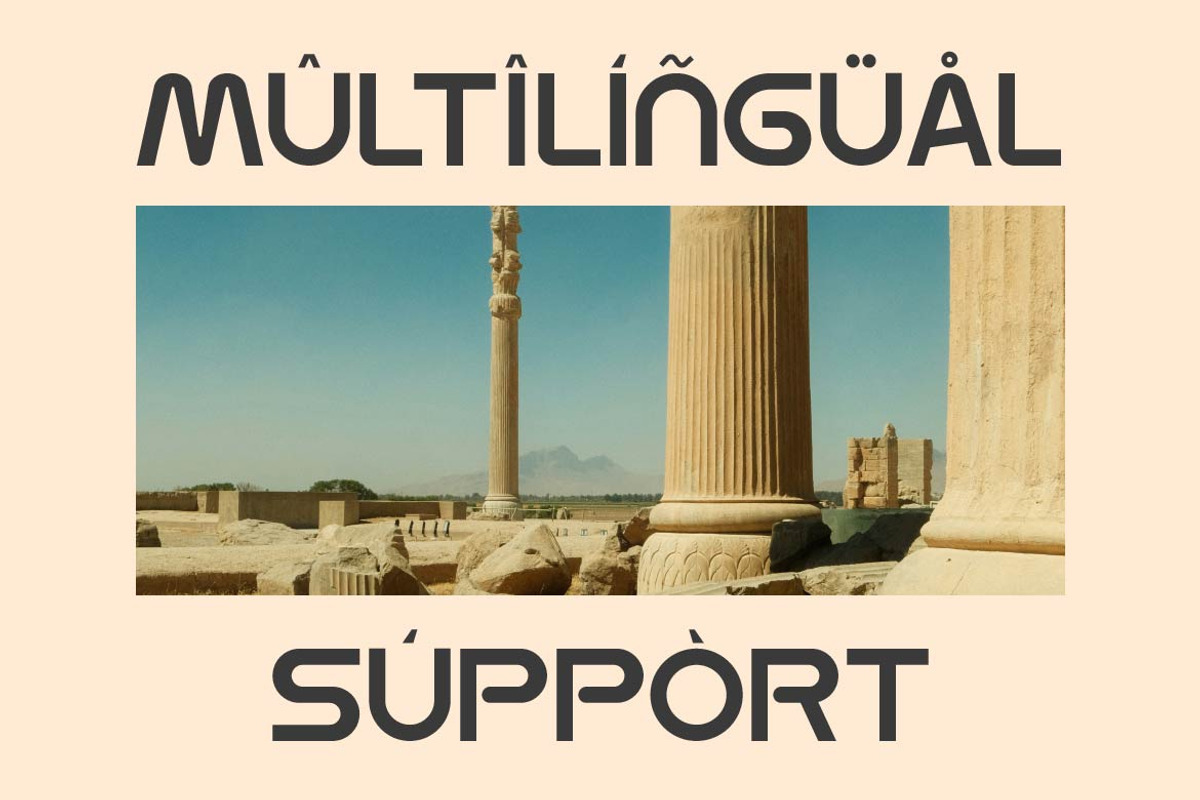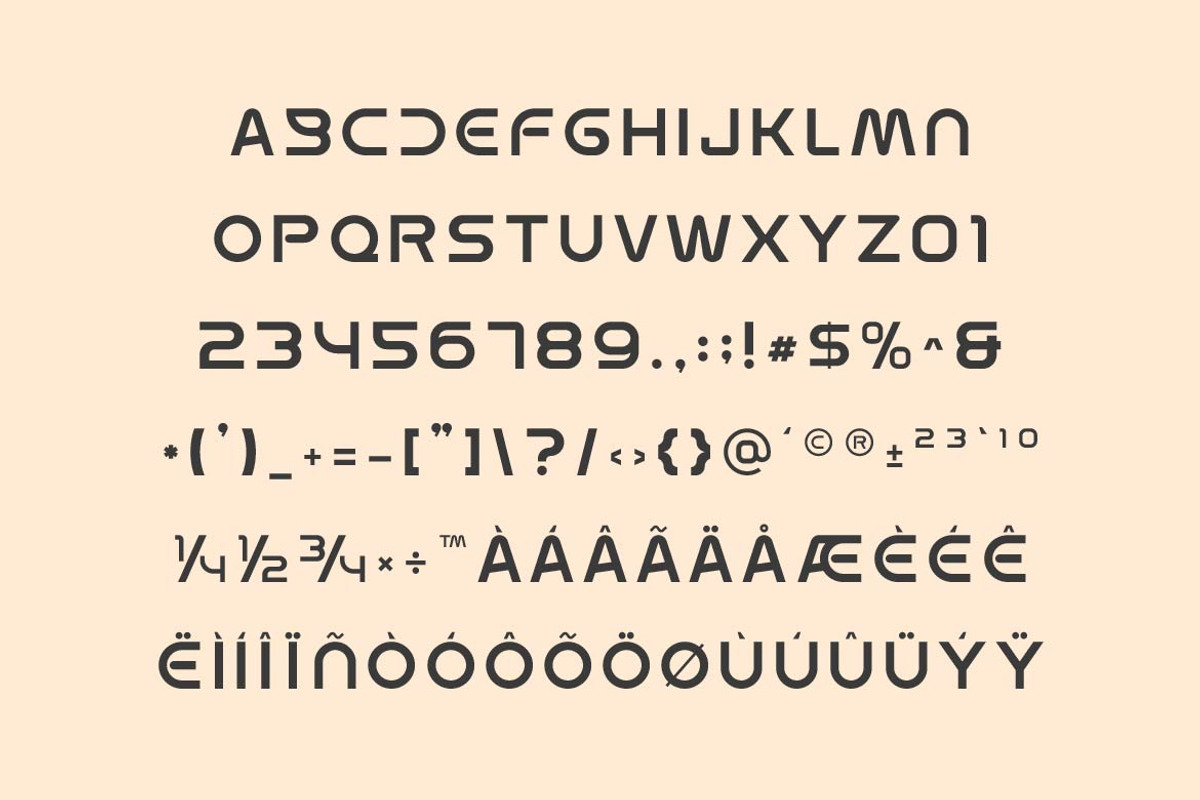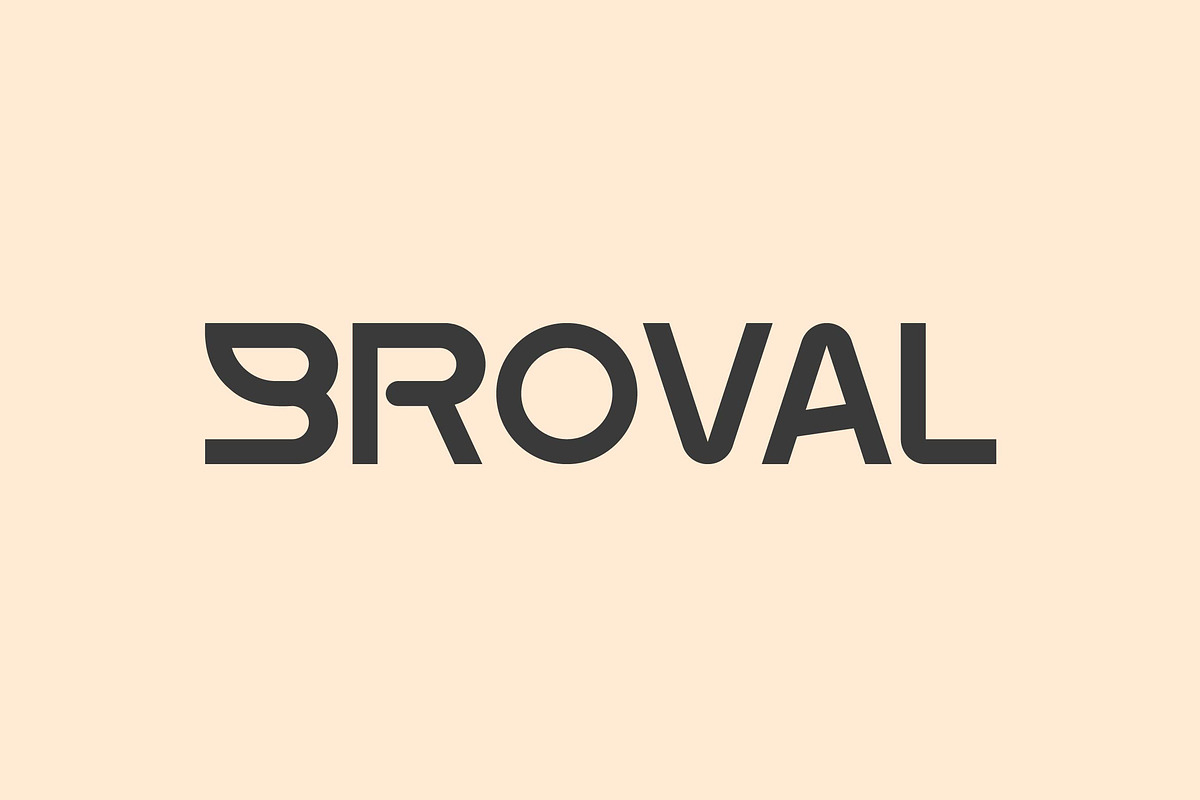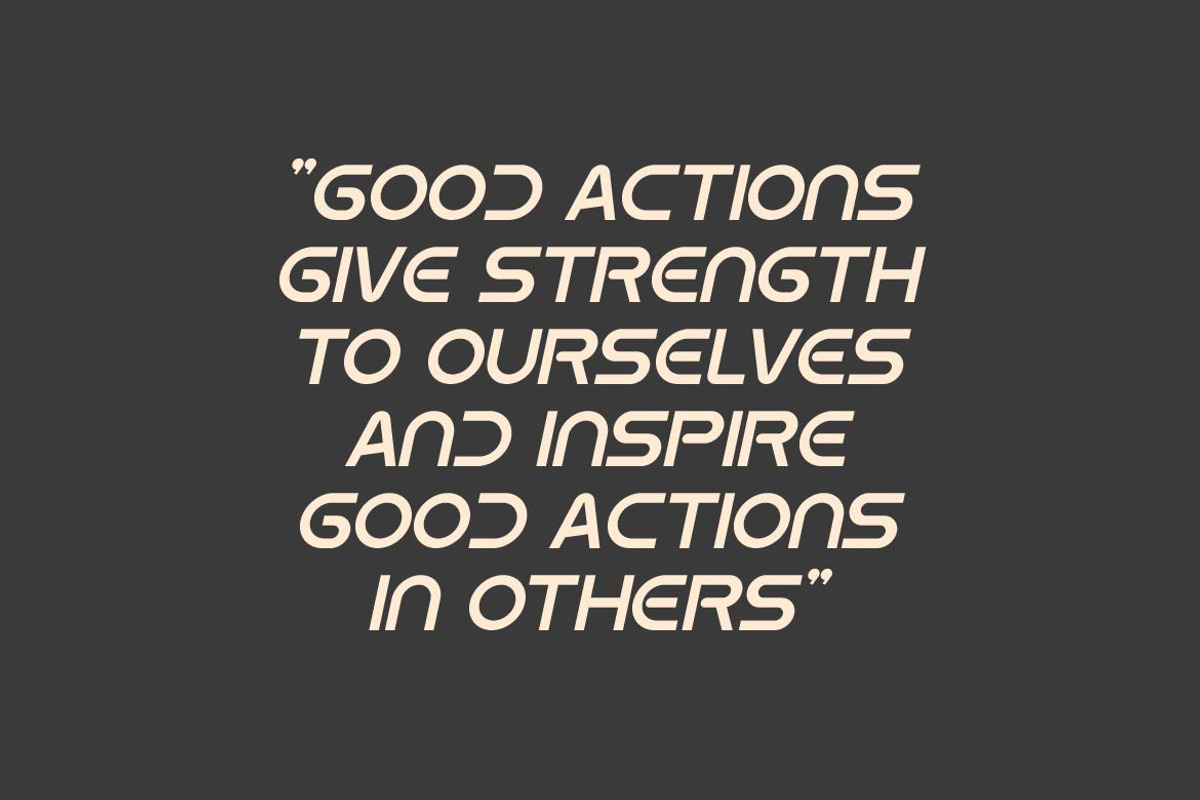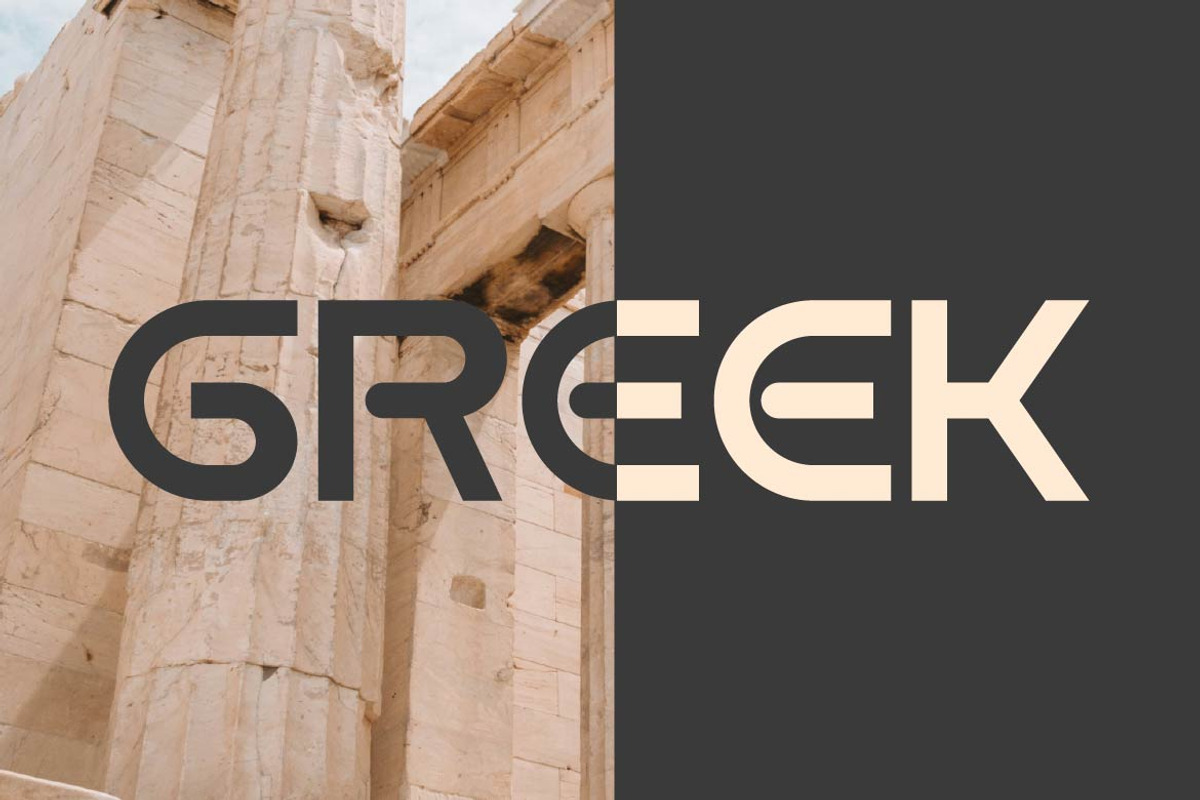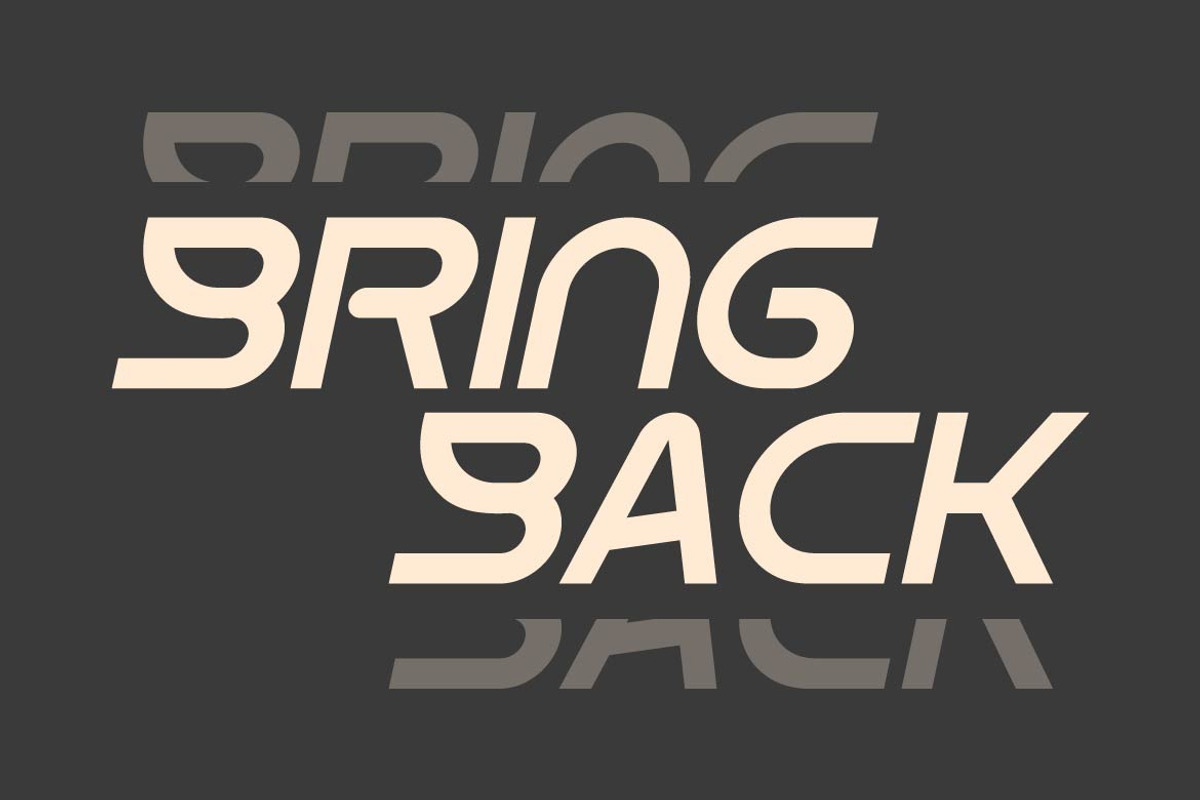
Broval Modern Strong Sans
Broval is a powerful sans serif font designed to make a statement. With its thick strokes, sharp edges, and solid geometric structure, Broval delivers strength and confidence to any design. Perfect for impactful headlines, logos, posters, sports graphics, product packaging, and modern branding, Broval ensures your message stands out loud and clear.